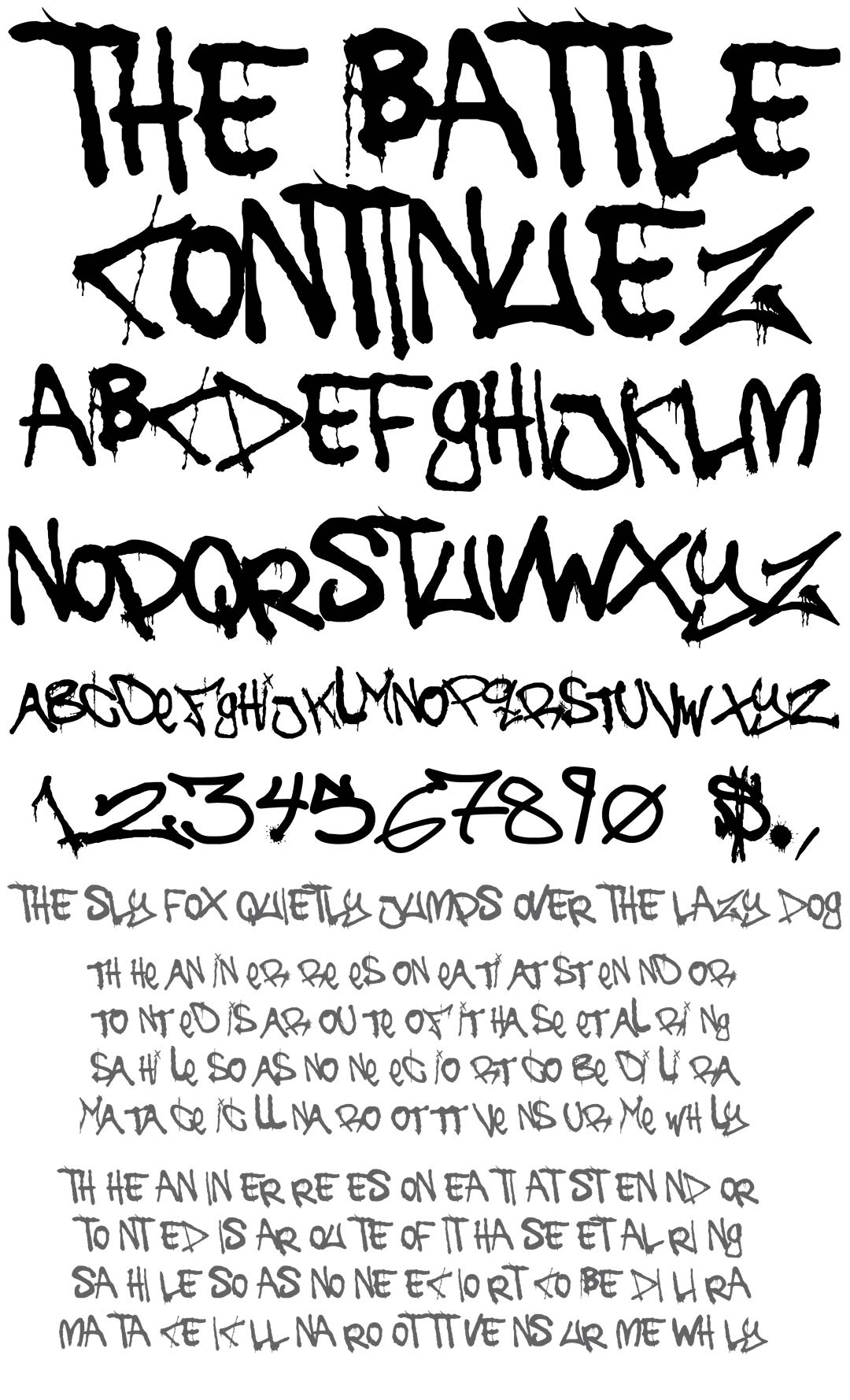
The Battle Continues
The Battle Continues Graffiti Alphabet
The Battle Continues Graffiti Font Family
This rough & dirty style has the look of splotchy spray paint. Its letter style is reminiscent of punk or heavy metal & looks a bit like the graffiti of any random person as oppsed to a graffiti artist or gang member.